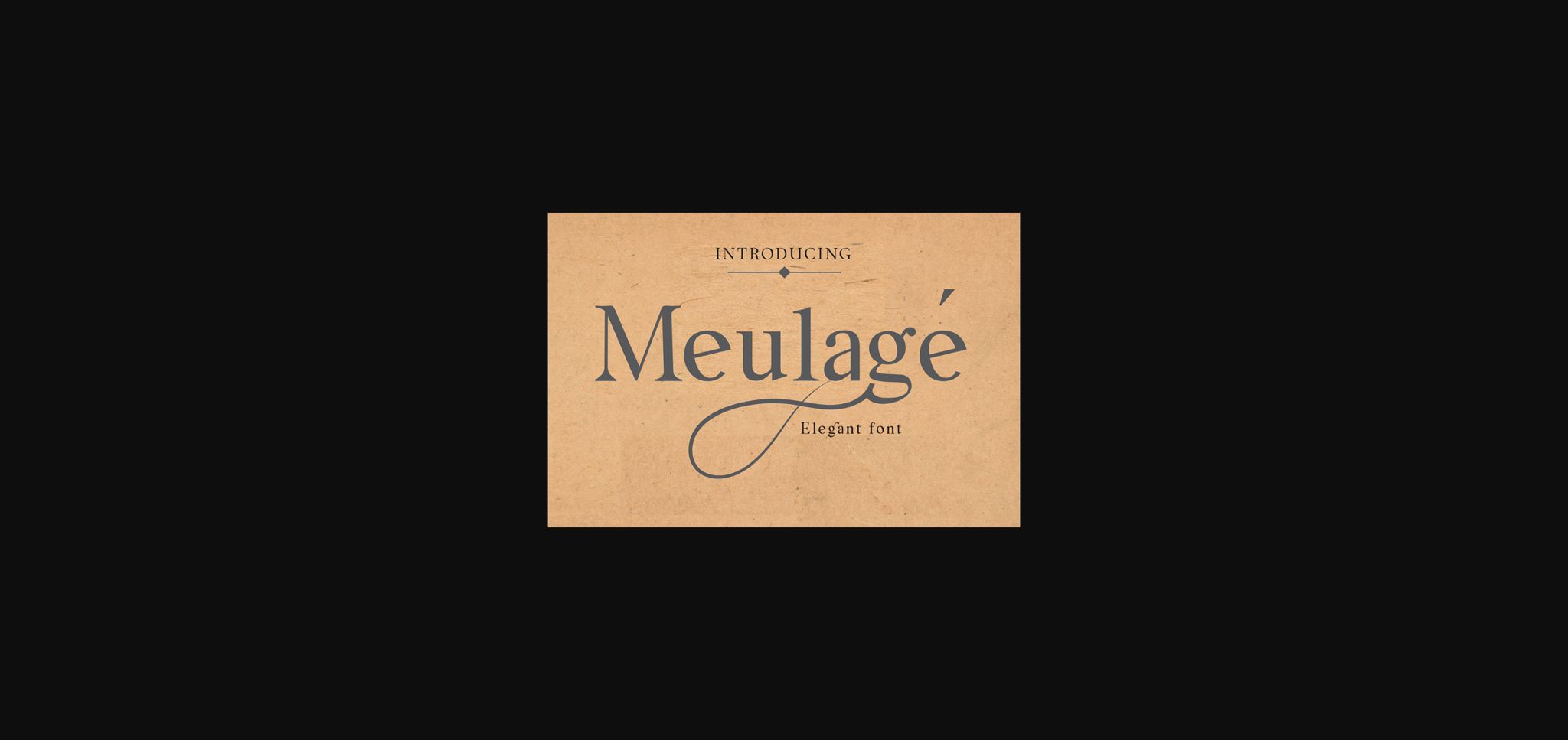
About Meulage Font
Meulage is a serif font that combines moderate classic style with a hint of sophistication, allowing for an incredibly vibrant and luxurious appearance. It will look especially gorgeous in logos, posters, covers, packaging, t-shirts, business cards, wedding cards and much more!